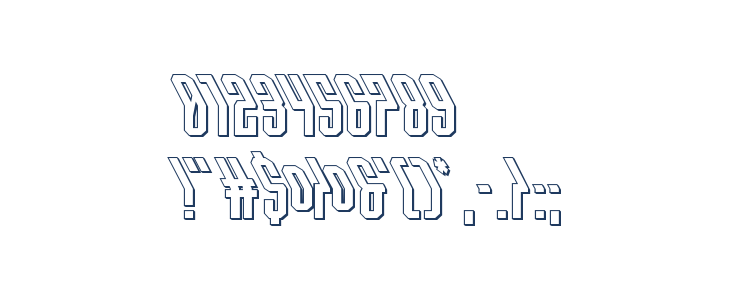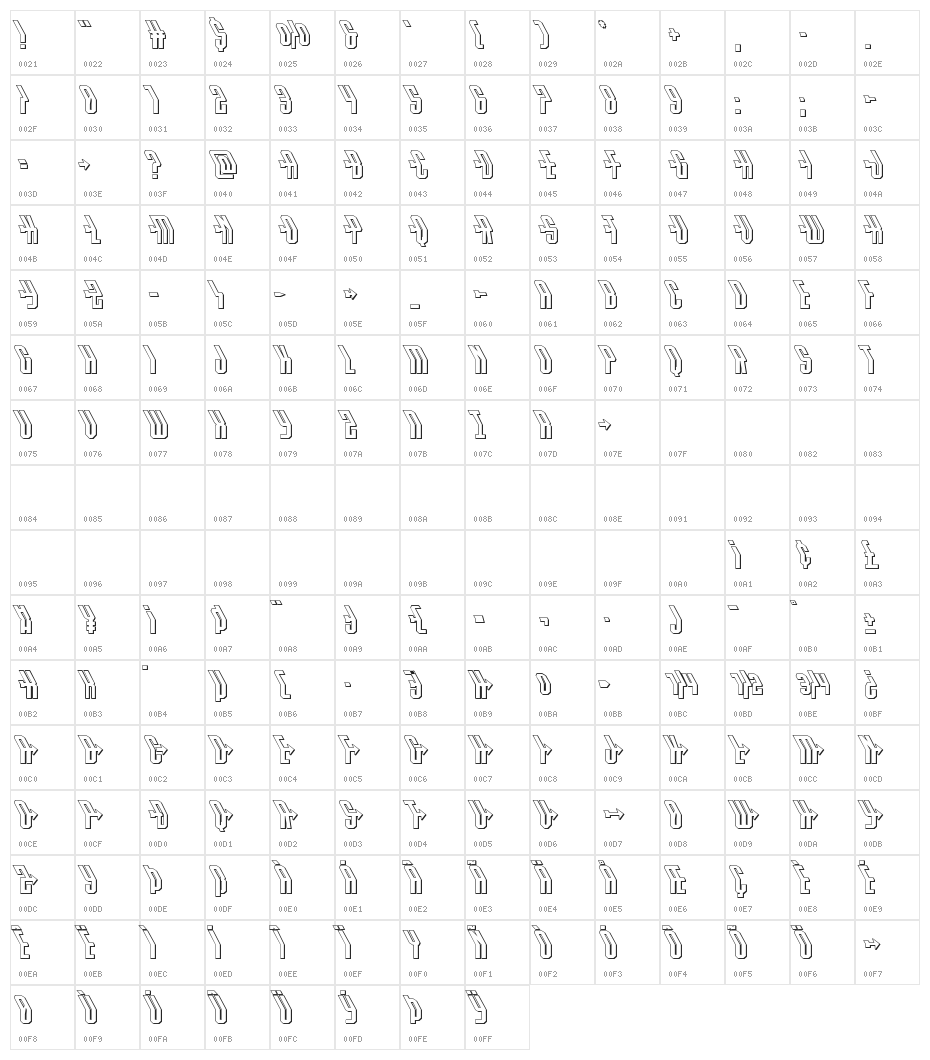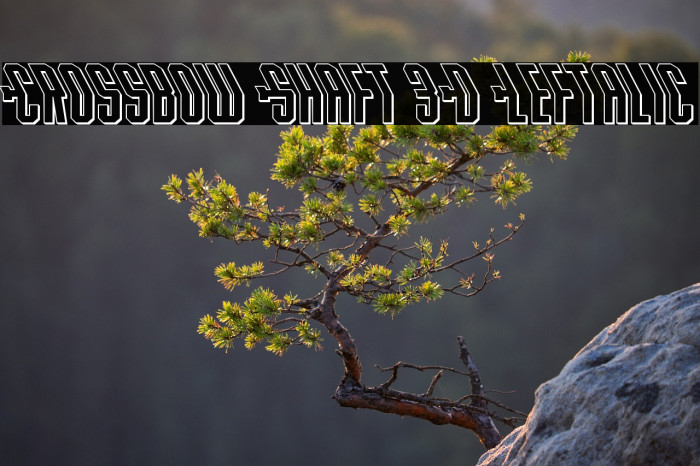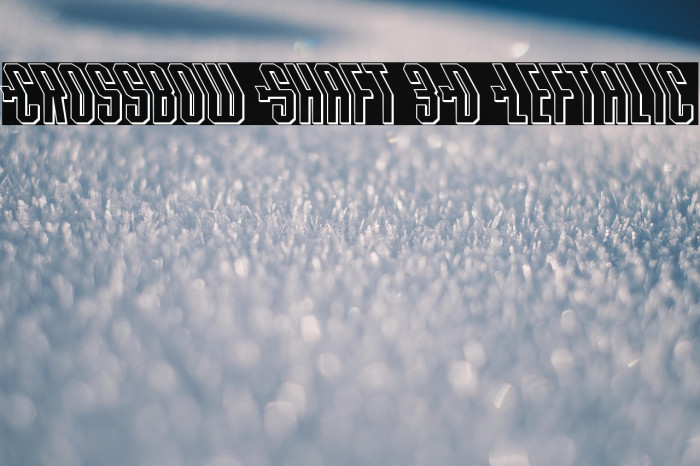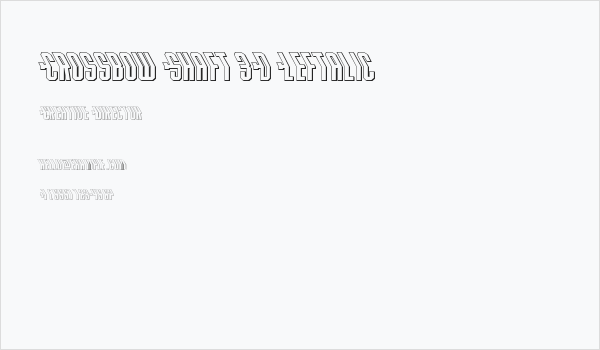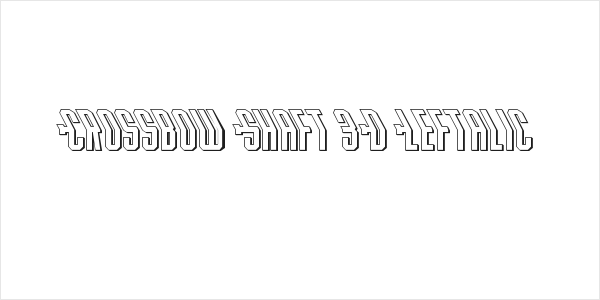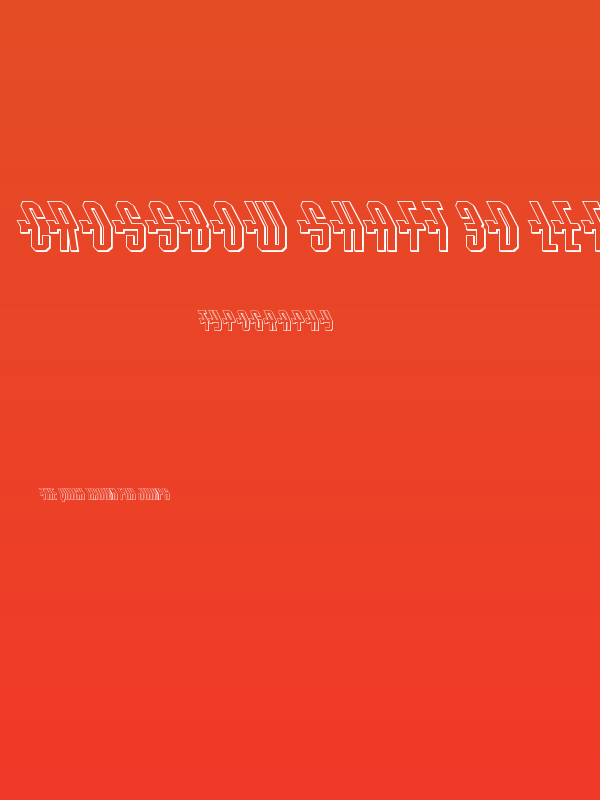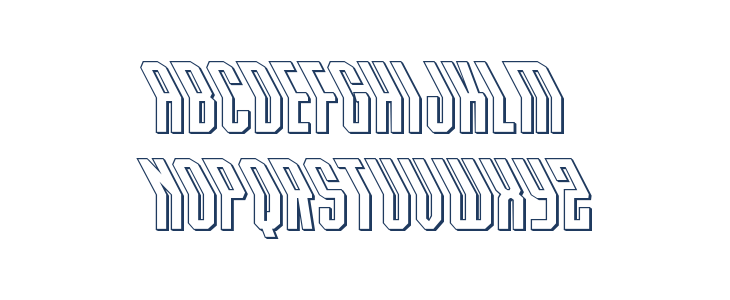
Crossbow Shaft 3D Leftalic Font
Crossbow Shaft 3D Leftalic Description
This font features a bold, 3D-styled design with a leftward slant, creating a dynamic and eye-catching appearance. The characters are outlined, giving them a hollow look that enhances the three-dimensional effect. The angular and geometric shapes of the letters contribute to a modern and futuristic aesthetic. The uppercase and lowercase letters maintain a consistent style, with sharp edges and a uniform thickness throughout. Numbers and special characters are designed to match the overall theme, ensuring a cohesive look across all text elements. This font's unique style makes it suitable for projects that require a strong visual impact.